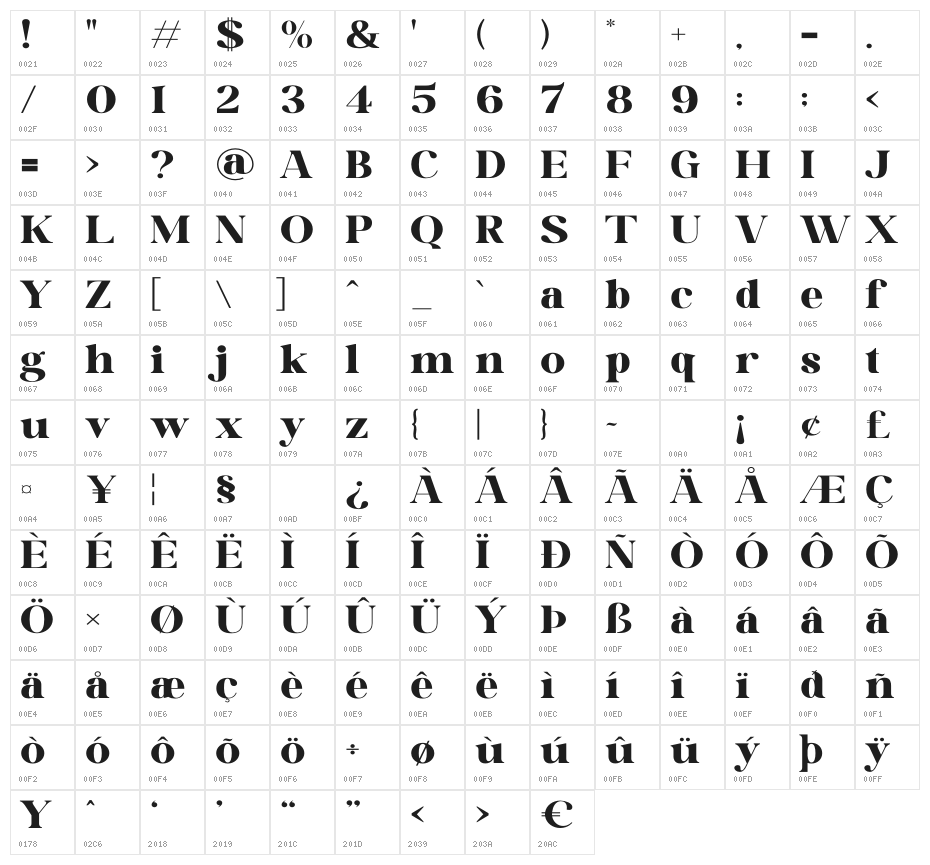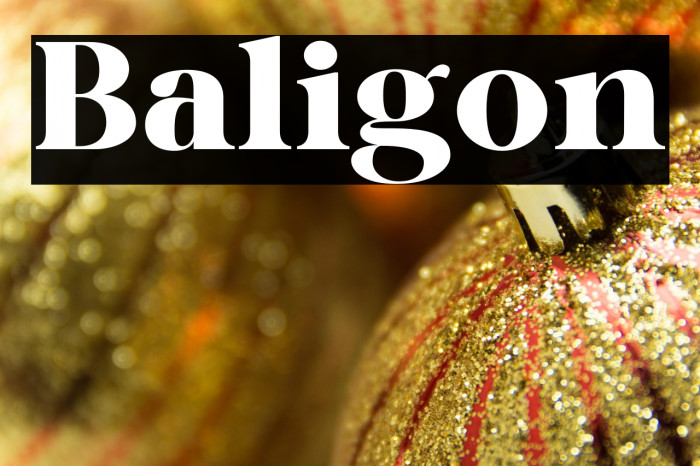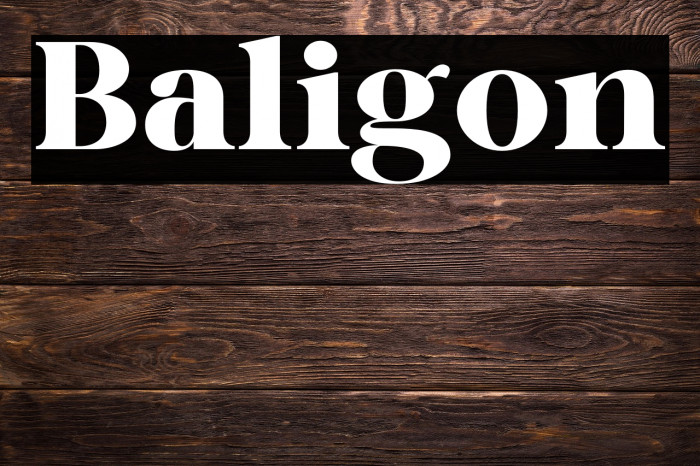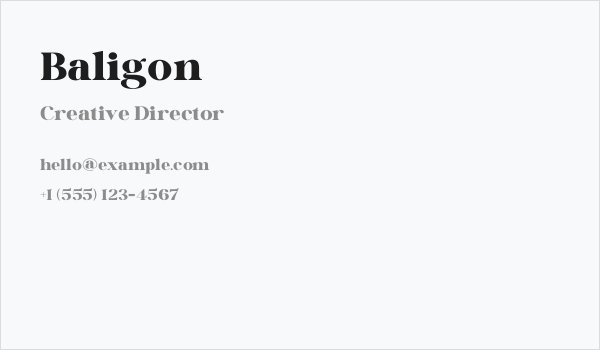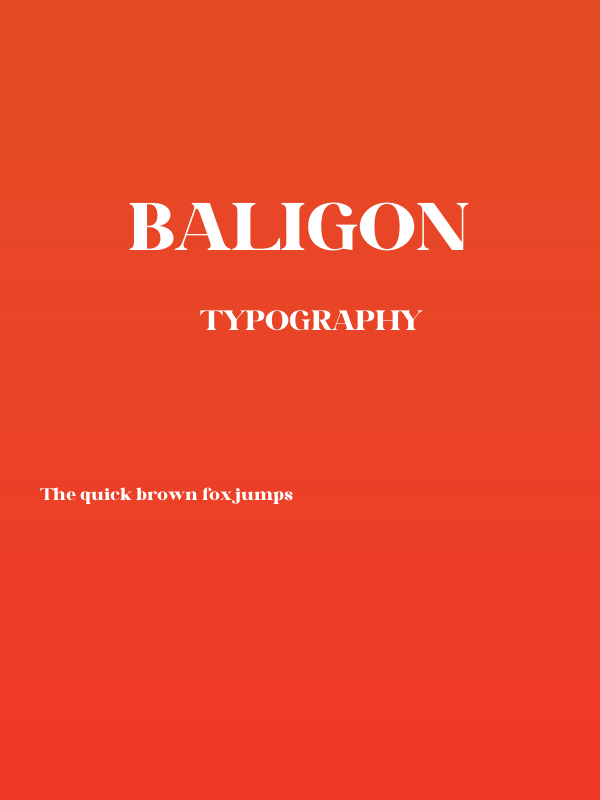
Baligon Font
Baligon Description
This font features a bold and striking serif design, characterized by its thick, prominent strokes and sharp, angular serifs. The uppercase letters exhibit a strong presence with their wide and commanding forms, while the lowercase letters maintain a consistent style with slightly rounded edges that soften the overall appearance. The numerals are equally bold, ensuring they stand out clearly in any context. Special characters are designed with the same attention to detail, making them easily distinguishable. The font's high contrast between thick and thin strokes adds a dynamic and elegant touch, suitable for making a statement in any design project.
| Overall Style | Classic |
| Proposed Projects | Ideal for branding, headlines, editorial design, and any project requiring a strong typographic presence. |